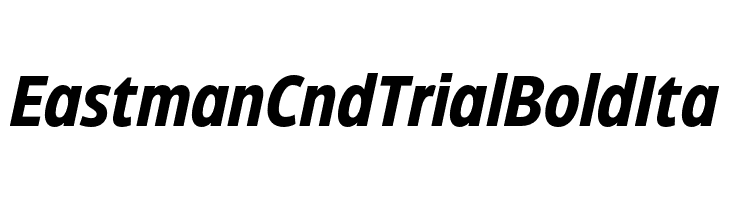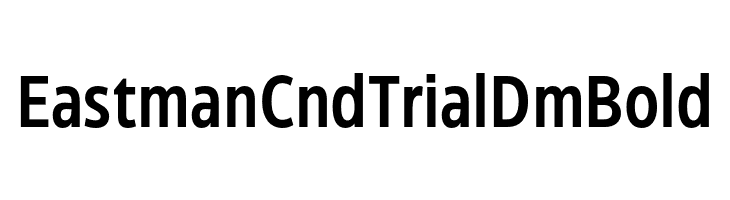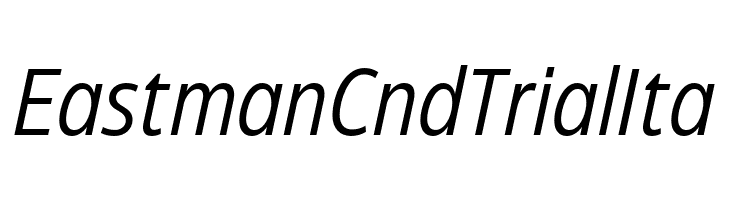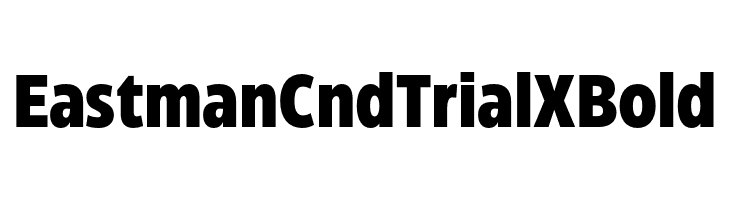
A bold, modern sans-serif font with clean lines and balanced spacing.
A bold, modern font with thick, uniform strokes and tight spacing.
A modern, minimalist font with thin, uniform strokes and a sleek appearance.
A bold, condensed, and italic font with high contrast, perfect for impactful headlines.
A bold, condensed font with high contrast and modern style.
A sleek, modern font with thin, clean lines and a minimalistic design.
A bold, modern sans-serif font with a condensed style and consistent stroke width.
A bold, italic, and condensed font with a modern and dynamic style.
A bold, condensed font with strong, uniform strokes and a compact design.
A modern, italic, and slightly condensed font with a clean and professional style.